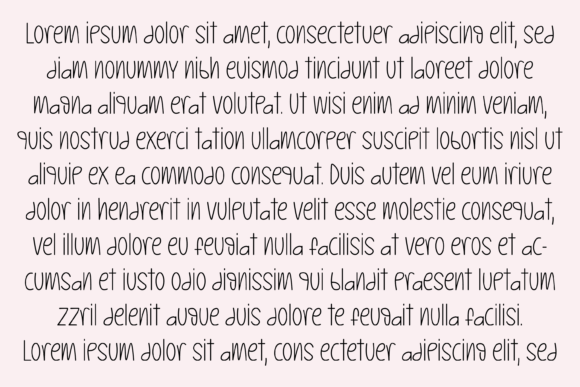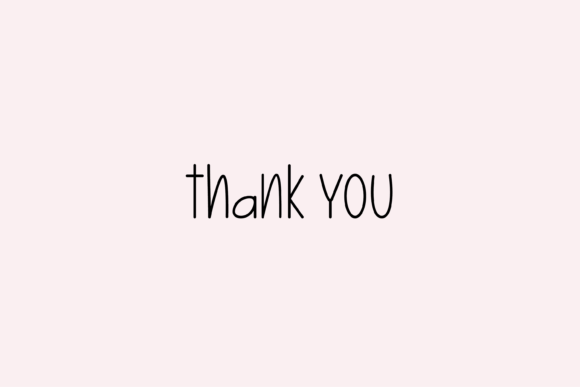
Introduction to Rager Font
Rager is a simple and friendly handwritten font.
Whimsical and a bit quirky, this font will brighten up each of your designs Add it confidently to your projects, and you will love the results.